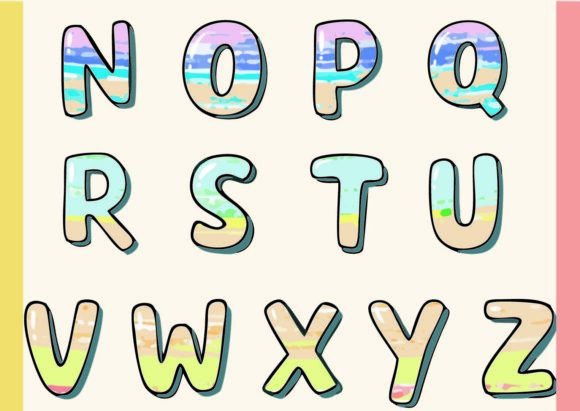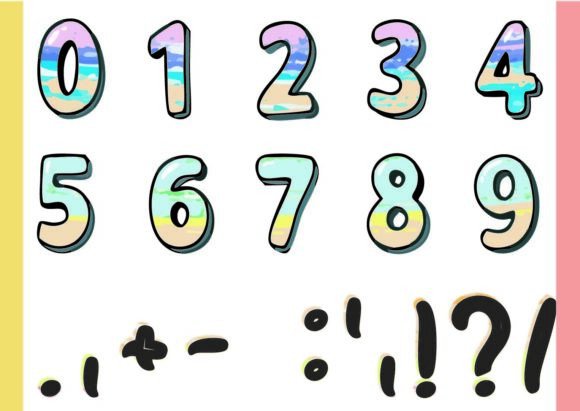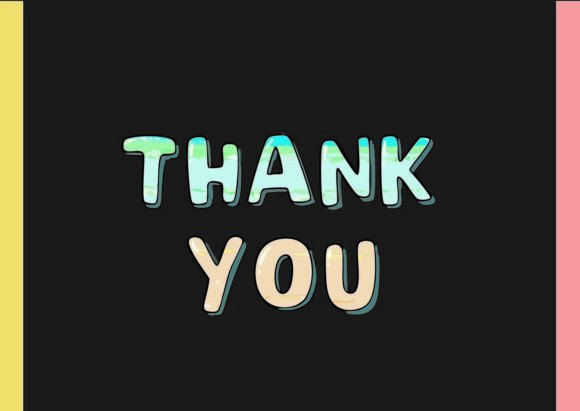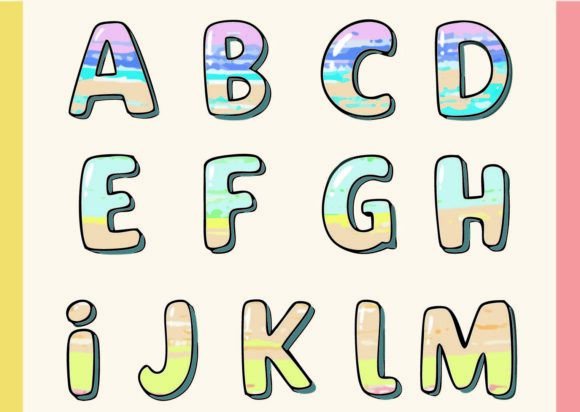
Introducing Gianna Font: A Colorful Heaven for Designers and Crafters
Are you tired of using the same old fonts in your designs? Look no further than Gianna Font, a vibrant and unique color font that is sure to take your work to the next level. With its complex sets of paths and connections, each glyph in Gianna Font is like a typographic painting, adding a touch of elegance and sophistication to any project.
What makes Gianna Font special?
Every single glyph in Gianna Font has a different set of colors, making it a true standout in the world of typography. This colorful heaven is perfect for designers and crafters who want to add a pop of personality to their work. Whether you’re creating a logo, a poster, or a digital graphic, Gianna Font is sure to make your design shine.
Technical Details: Opentype-SVG and Compatibility
Gianna Font is a color font in Opentype-SVG format, which means it’s compatible with a range of popular design software, including Photoshop, Illustrator, Silhouette, and Inkscape. This format allows for intricate designs and color variations, making it perfect for designers who want to push the boundaries of typography.
Use Cases: Where to Use Gianna Font
Gianna Font is versatile and can be used in a variety of design projects, including:
- Logos and branding: Add a touch of elegance and sophistication to your logo or brand identity with Gianna Font.
- Posters and flyers: Make your posters and flyers stand out with Gianna Font’s colorful and intricate designs.
- Digital graphics: Add a pop of personality to your digital graphics, such as social media graphics, with Gianna Font.
- Crafting: Gianna Font is perfect for crafters who want to add a personal touch to their projects, such as handmade cards, scrapbooking, and more.
Tips for Using Gianna Font
Here are a few tips for getting the most out of Gianna Font:
- Experiment with different colors and backgrounds to make your design pop.
- Use Gianna Font to add a touch of elegance and sophistication to your design.
- Don’t be afraid to get creative and try new things – Gianna Font is all about experimentation and self-expression.
Gianna Font is a game-changer for designers and crafters who want to add a touch of personality and elegance to their work. With its complex sets of paths and connections, each glyph is like a typographic painting, adding a level of sophistication and refinement to any project. Whether you’re a seasoned designer or just starting out, Gianna Font is a must-have in your font collection.